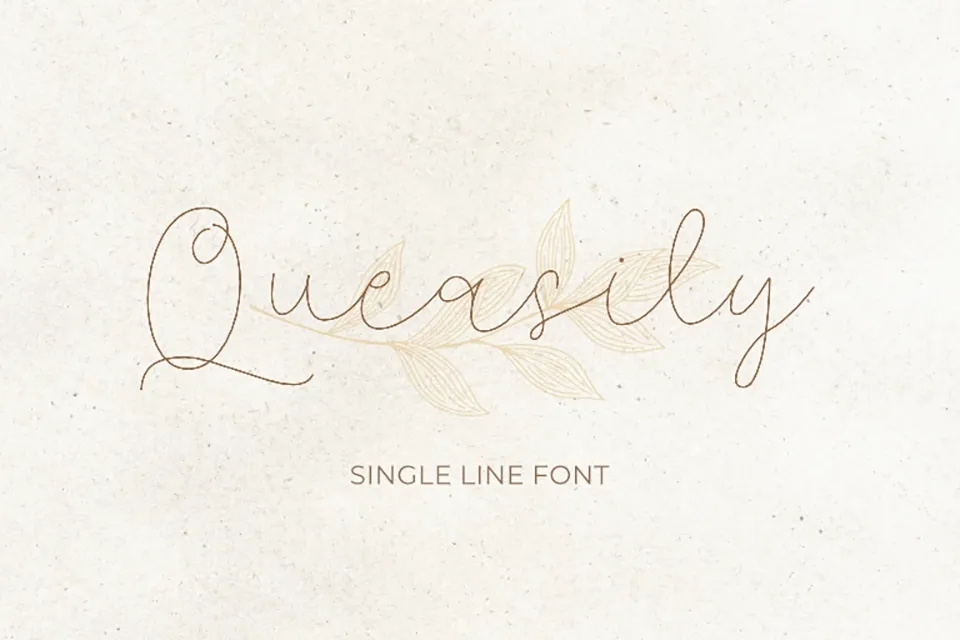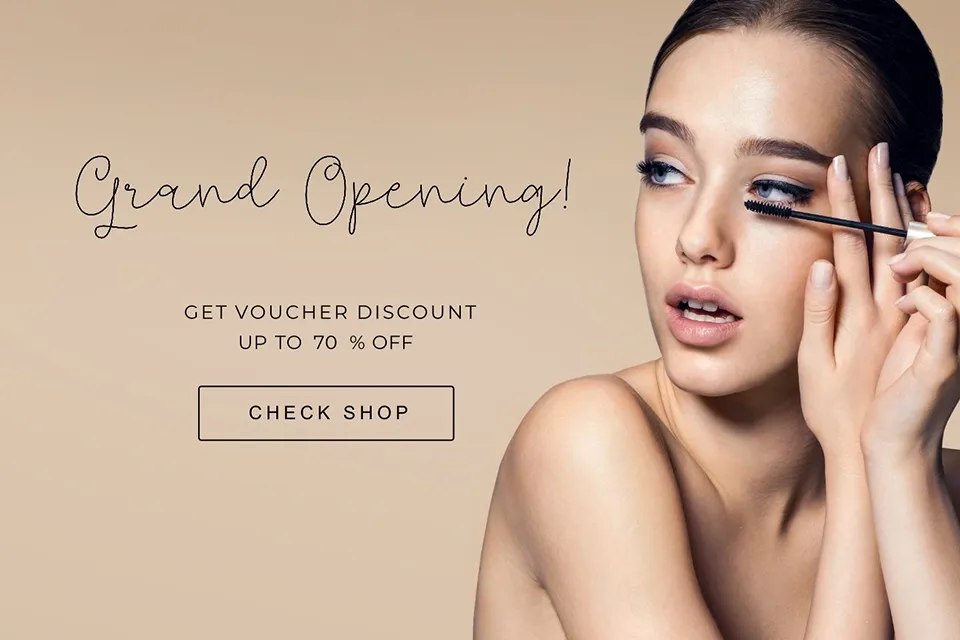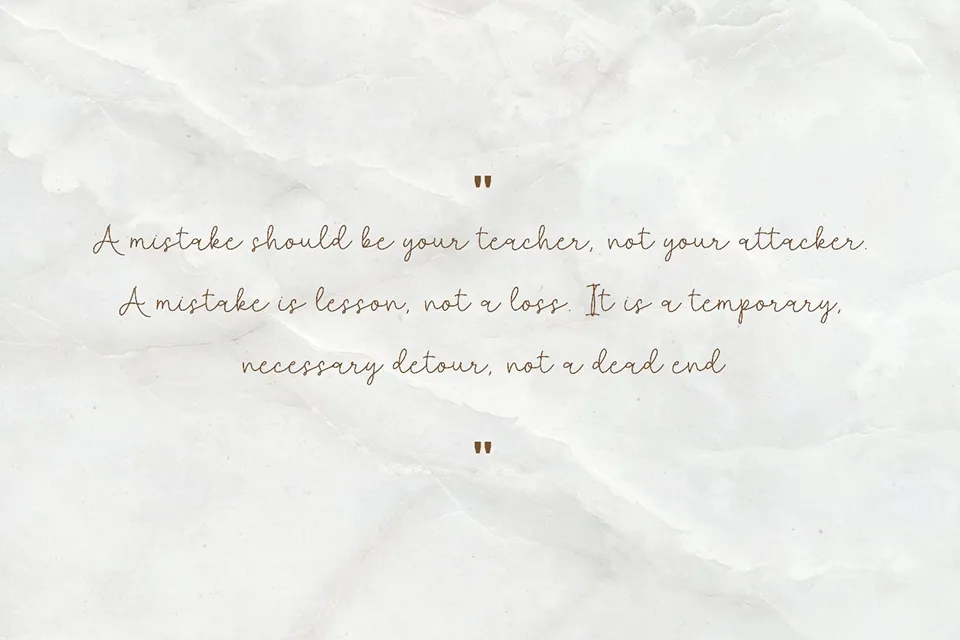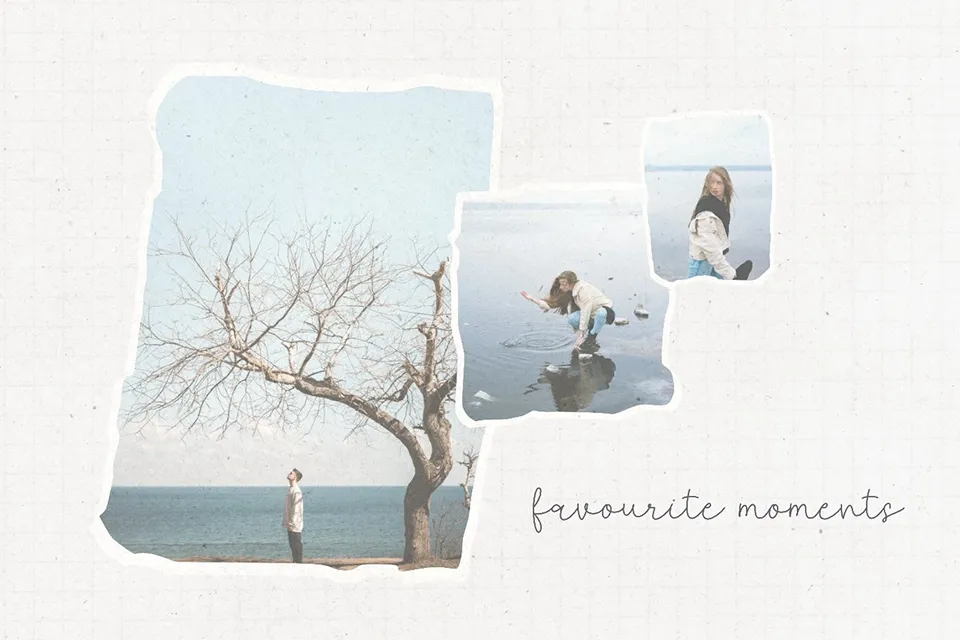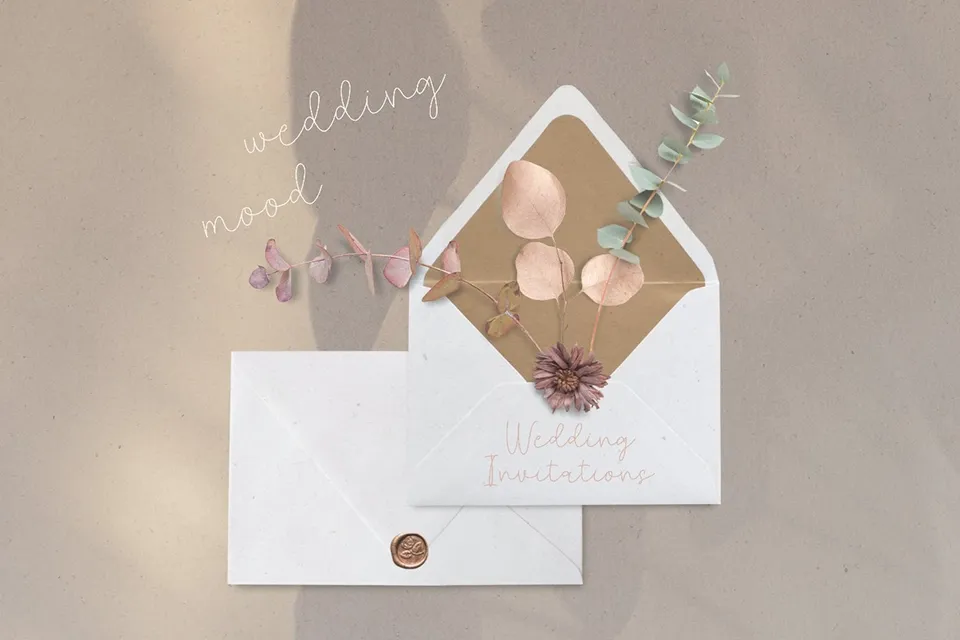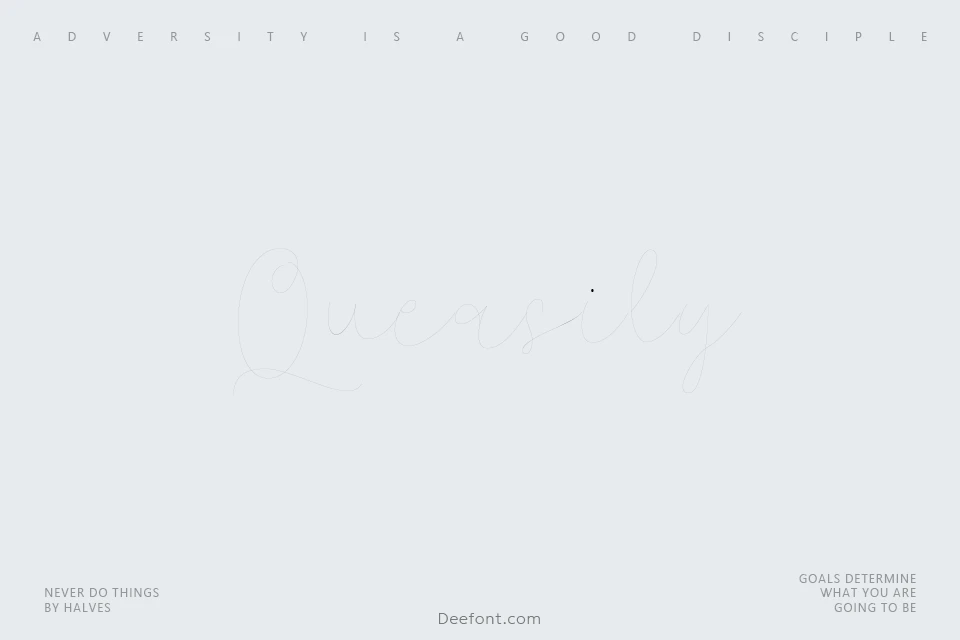
Queasily Single Line Font
Queasily Single Line Font is an elegant and refined script typeface designed with single, continuous strokes. Its understated style makes it ideal for invitations, logos, branding, product packaging, magazine covers, and social media graphics. Queasily Single Line Font is especially suited for use with cutting machines like Cricut and Silhouette, ensuring crisp, clean lines for writing, engraving, or foiling projects.